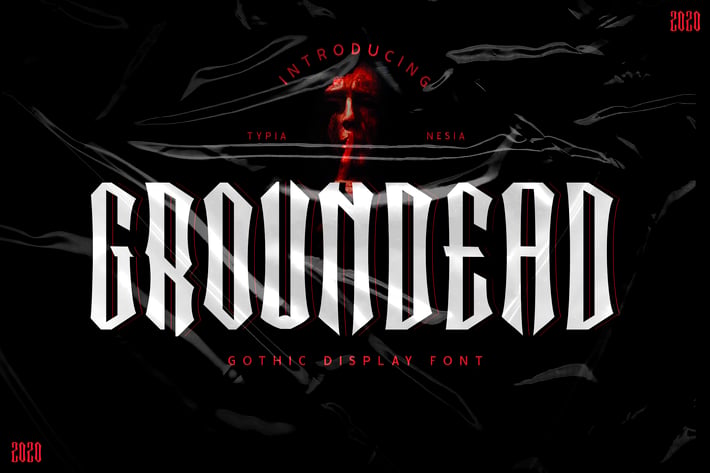
Groundead - Gothic Font
Grounded - Gothic Decorative Display Font
Suitable for any design needs : logo, branding, modern advertising design, halloween, gothic design, apparel, hardcore music, animation or movie, logos, poster quote, book / cover Title, editorial design, website / blog, card, custom mug, pillow, t-shirts, and any gothic hand-lettered needs.